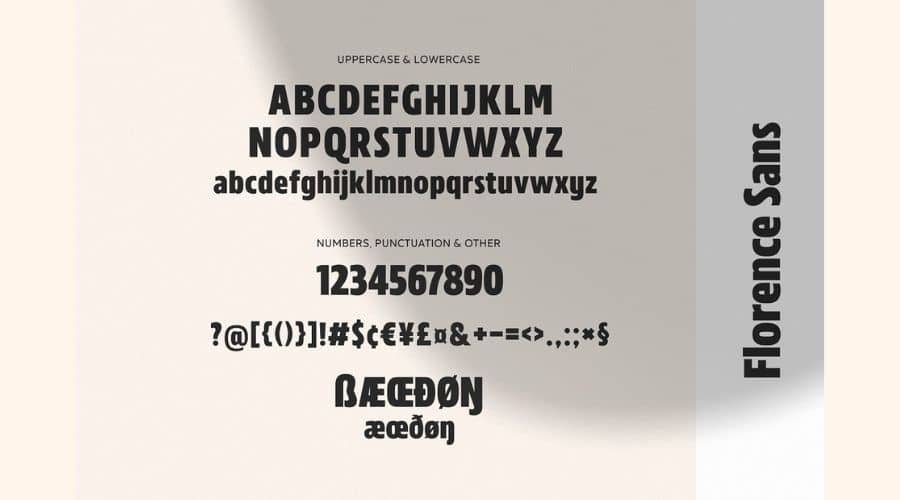
MADE Florence Font Duo
MADE Florence Font Duo is a new font family from MADE. MADE Florence is a lovely font pair. A beautiful sans serif and script font pair. The Font is the DUO typeface. Madetype developed and released the Font on June 4, 2019. The typeface includes letters, numbers, and symbols in bold and thick characters with a powerful presence, and the Florence script letters, whether uppercase or lowercase, have a beautiful calligraphic appearance. The Font MADE Type-shared free version is in OTF format and can only be used for personal use.
This new typeface has it all: sugar, spice, and everything good. This unique Florence Duo font combines a beautiful script typeface with a sans serif font to give you the best of both worlds, much like the wind that moves between a gentle breeze and a strong gust. This polarity of this Font is a gift in any project. So, you may use it for ads and sales promotions, logos, restaurants, tags, business cards (thank you, invitation, RSVP), quotes, posters, leaflets, magazines, branding designs, internet postings and posters, album art, and so on.